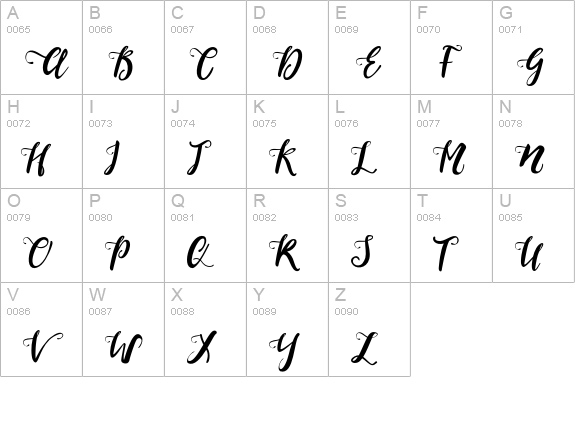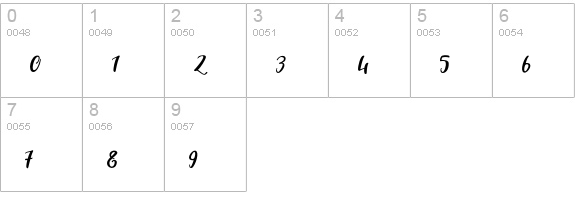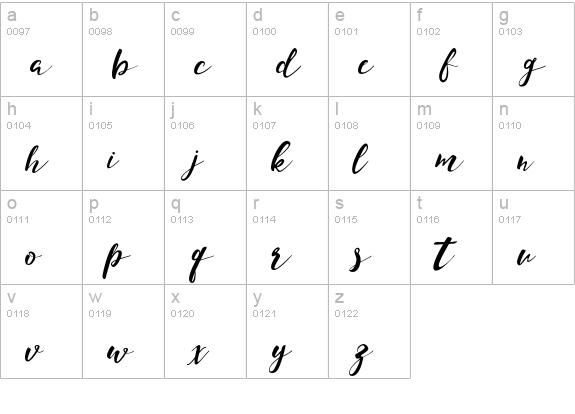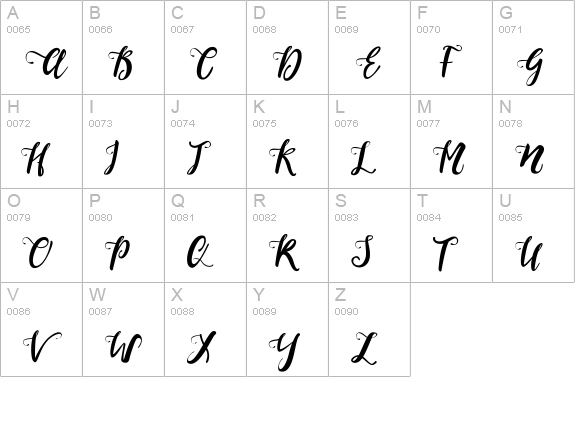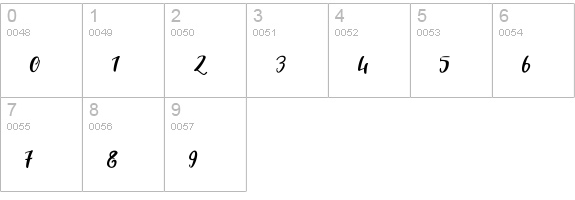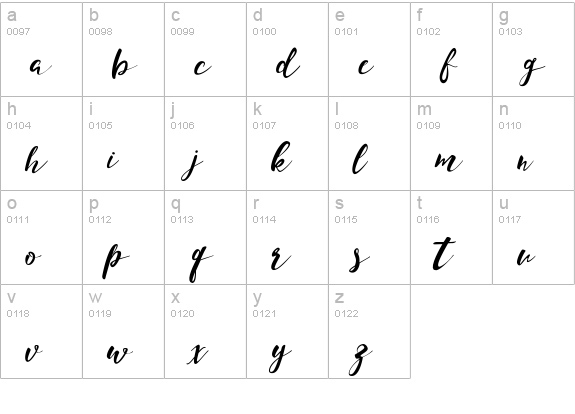
Monica Script updt Font Details
Monica Script updt font is a stunning and elegant typeface that exudes sophistication and charm. Its flowing, cursive style adds a touch of class to any design project, making it perfect for invitations, branding, and more. This script font features beautifully crafted characters with a modern twist, giving your work a unique and contemporary look. Best of all, Monica Script updt font is completely free to download at FontsMarket.com. Whether you're a professional designer or a hobbyist looking to elevate your projects, this font is a valuable addition to your toolkit. Embrace the beauty and versatility of Monica Script updt font today and watch your designs come to life with style and grace.